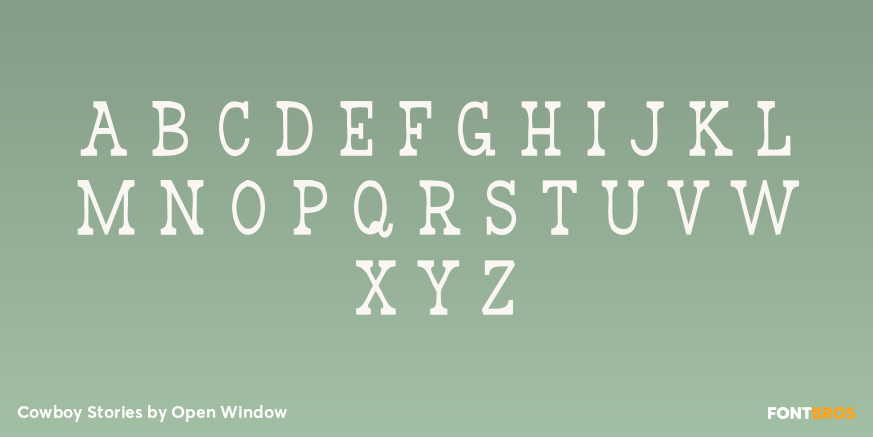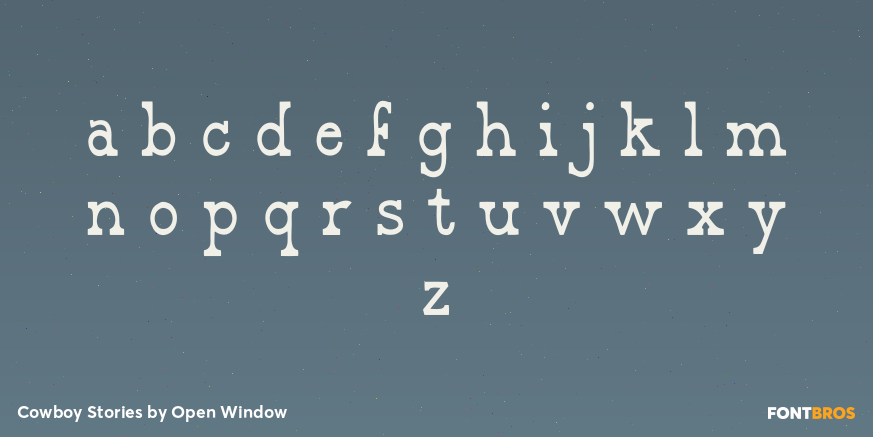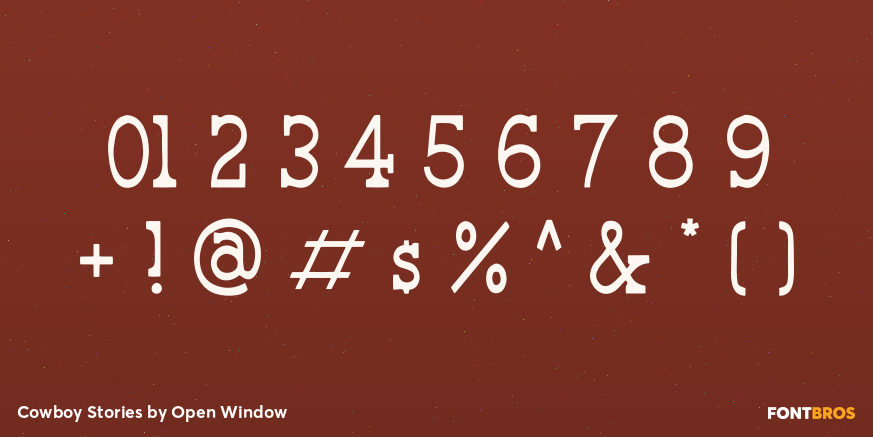
Cowboy Stories
Font Family by Open Window
Cowboy Stories celebrates a landmark innovation for dingbat fonts.
Its the 2 color layered-dingbat.
Its complementing character set provides just the right amount of Spaghetti Western charm.
Need assistance spinning a memorable fireside yarn? Grab your trusty spittoon and a copy of Cowboy Stories.